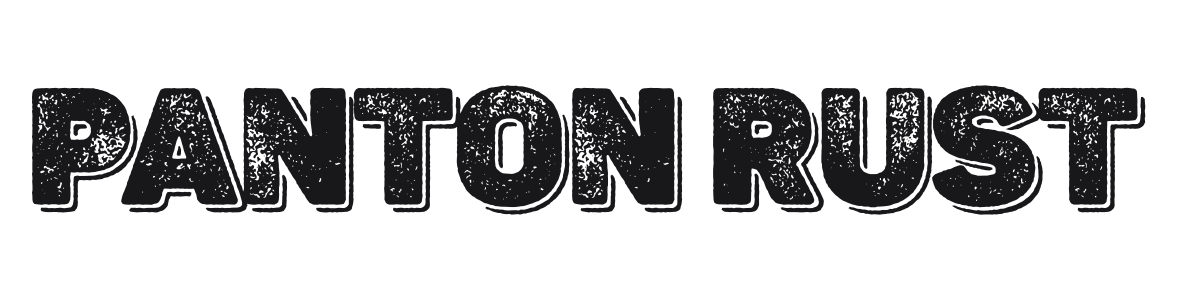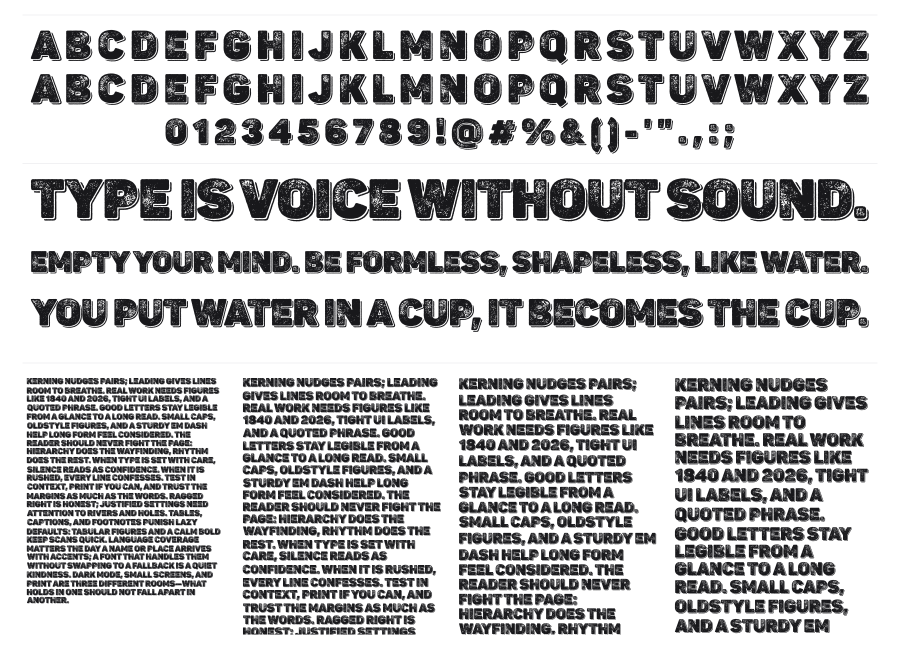
Panton Rust
Panton Rust is a heavy rounded sans-serif from Fontfabric with a built-in distressed texture that mimics aged ink, rust, and worn surfaces. The inline shadow detail adds dimension while the rough, gritty overlay keeps it raw and authentic. It carries the kind of weight and character that works for craft brands, poster work, and anything that needs a genuine vintage edge.